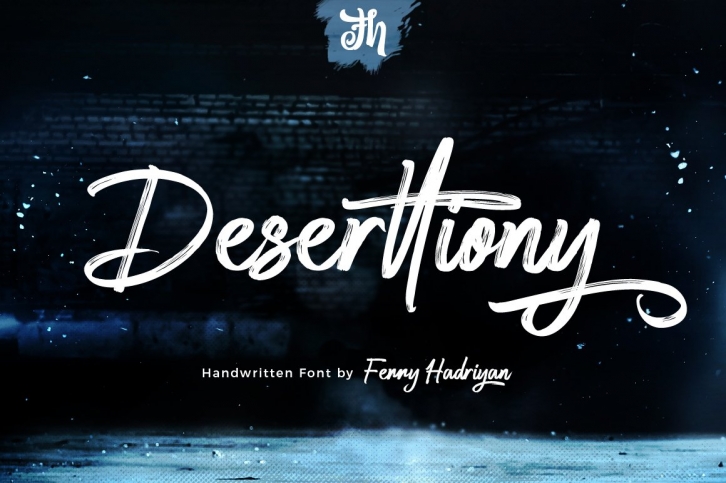
Deserttiony - Handwritten Font Download
Deserttiony is a great font that was designed by feydesign. Imagine the amount of combinations you can create using this font! The archive is 17.3 MB and it was released on July 3, 2020. Deserttiony looks beautiful on wedding invitations, greeting cards, logos, posters, labels, t-shirt designs, logos, business cards and is perfect for use in ink or watercolor works, fashion, magazines, packaging and food menus, children's books and more!